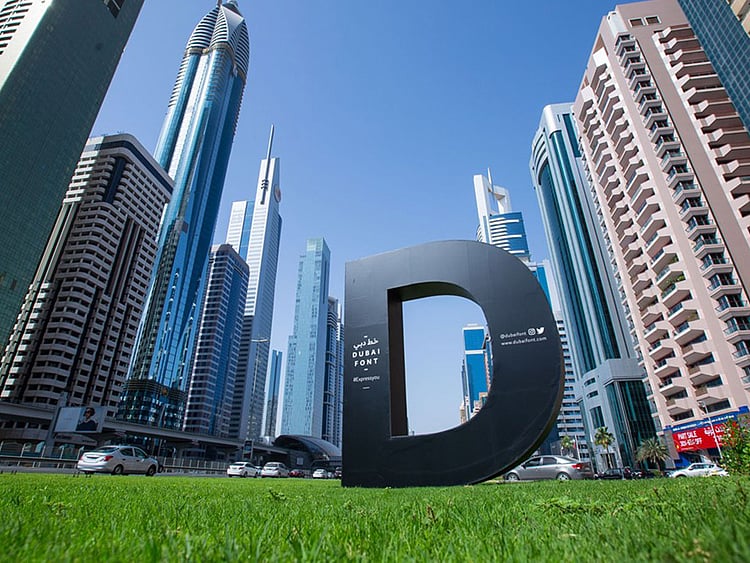
Letters of the alphabet in the Dubai Font have also been spotted in Dubai Mall and Kite Beach
Dubai: The city of Dubai is home to many unique projects; a seven-star hotel, the world’s tallest building, and now – the alphabet.
The alphabet typed in the Dubai Font, to be precise.
Giant letters of the Arabic and English alphabet have been making appearance in pockets of the city, and have been spotted along Shaikh Zayed Road, Shaikh Mohammad Bin Rashid Boulevard, Dubai Mall and Kite Beach, in addition to other main roads and streets in Dubai.
The Dubai Font mirrors the city’s qualities and promotes its global standing, and includes 23 languages.
According to organisers, this unique initiative serves as a reminder of the core values that characterise the city of Dubai: happiness, giving, respect, tolerance, modernity, smartness and living in harmony.
“The Dubai Font is not only a digital medium for expression and reading, it is also a means of communication combining the ancient and honourable past of the Emirates to its modern present and the aspirations of its brilliant future,” said Engineer Ahmad Al Mahri, assistant secretary general for the Executive Council and General Secretariat Affairs Sector of Dubai, and Project Director of Dubai Font.
The Dubai Font was the first font created by and named after a city, and developed in collaboration with Microsoft.
The unique font was launched in April 2017 by Shaikh Hamdan Bin Mohammad Bin Rashid Al Maktoum, Crown Prince of Dubai and Chairman of the Executive Council of Dubai.
Organisers have described the Dubai Font as one that, “fills a design gap between Arabic and Latin texts and presents harmonious typefaces combining the two scripts seamlessly.”